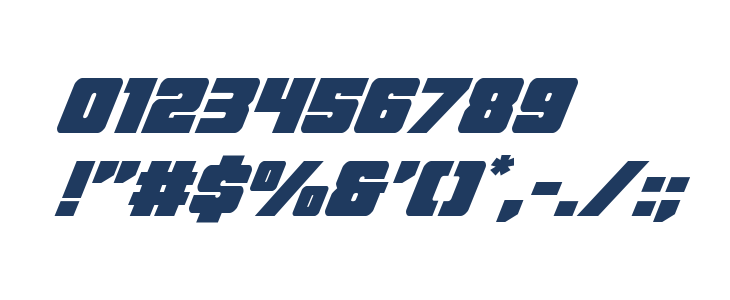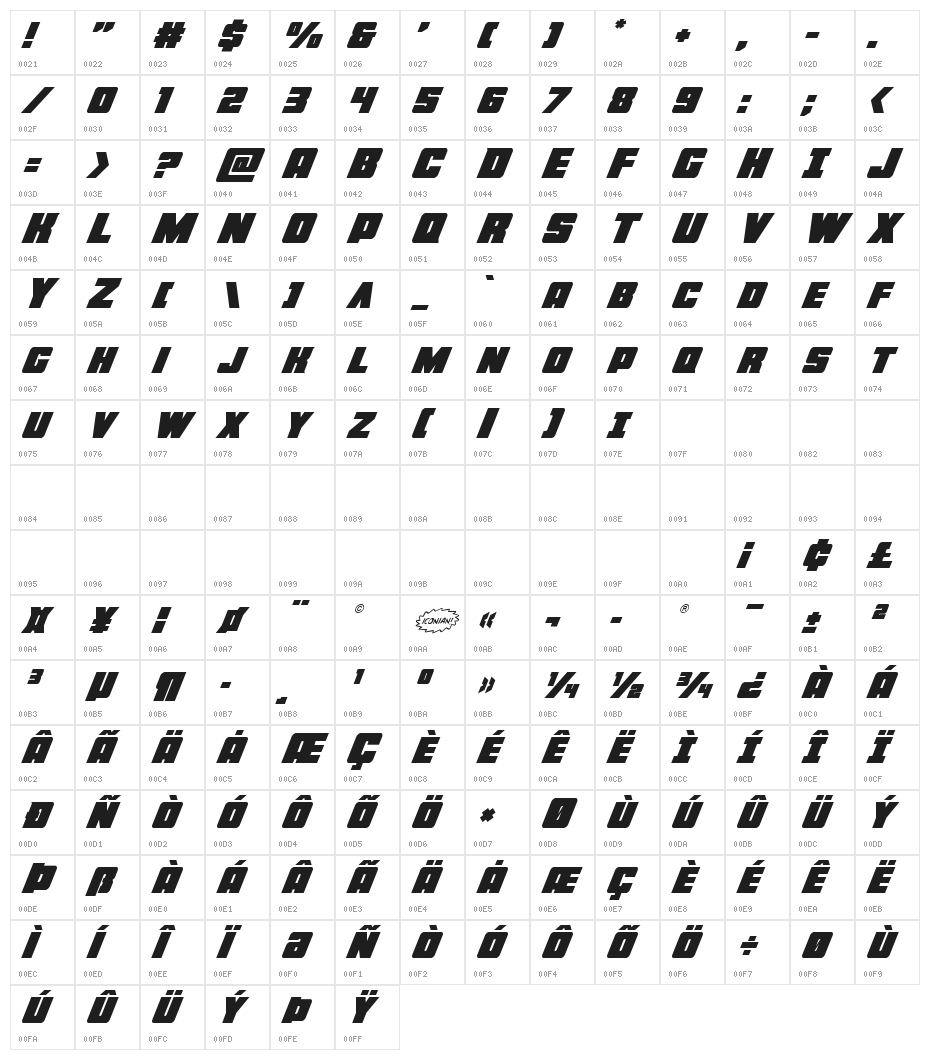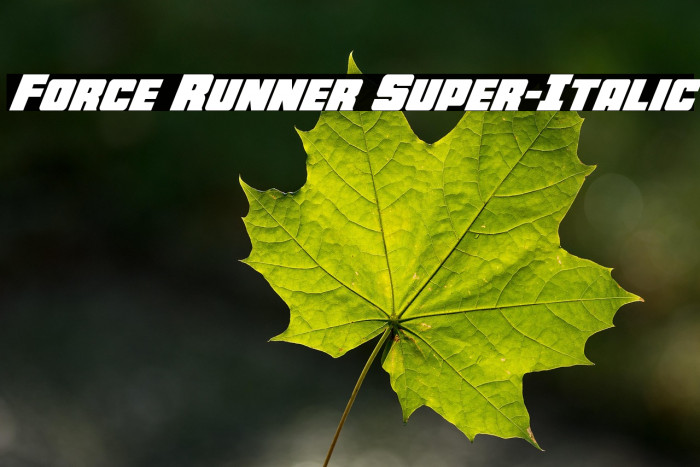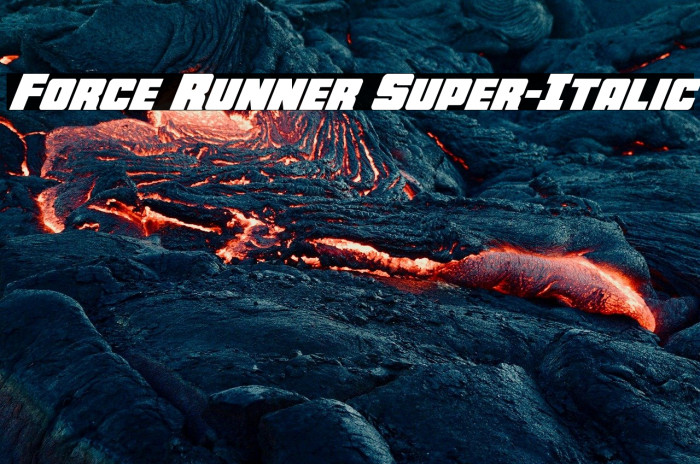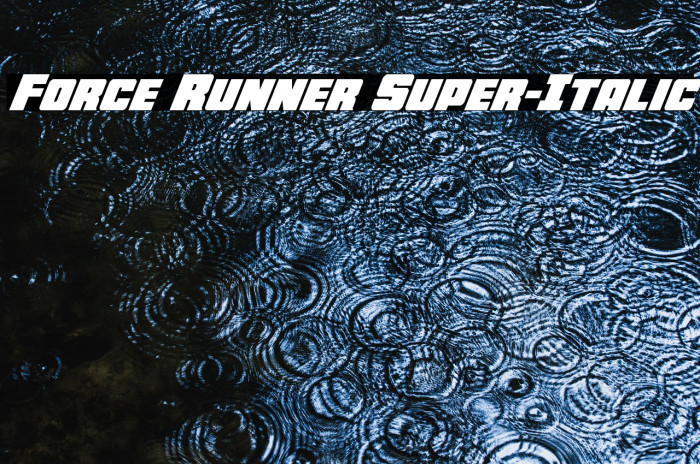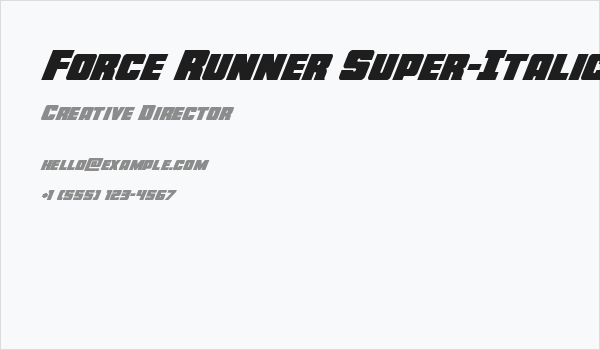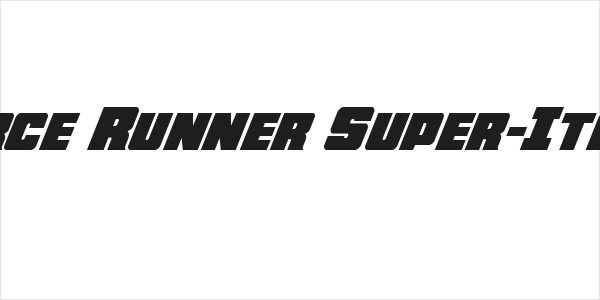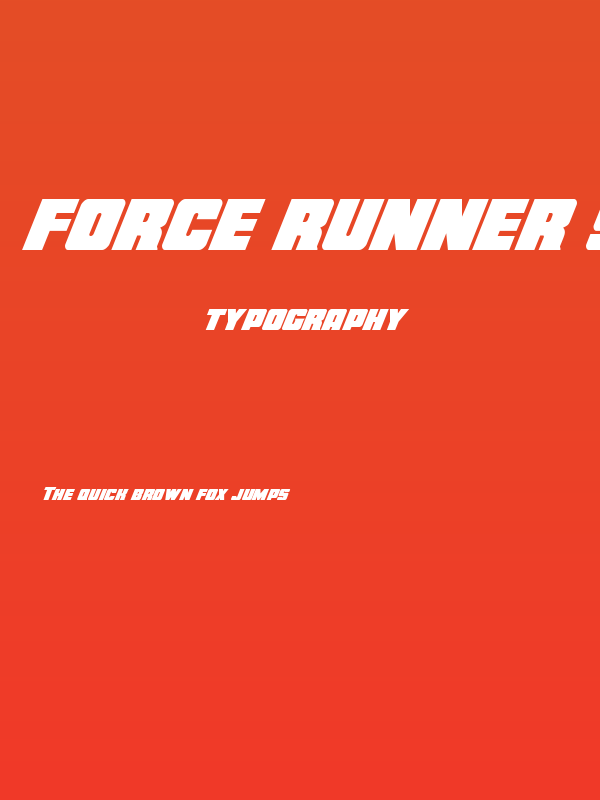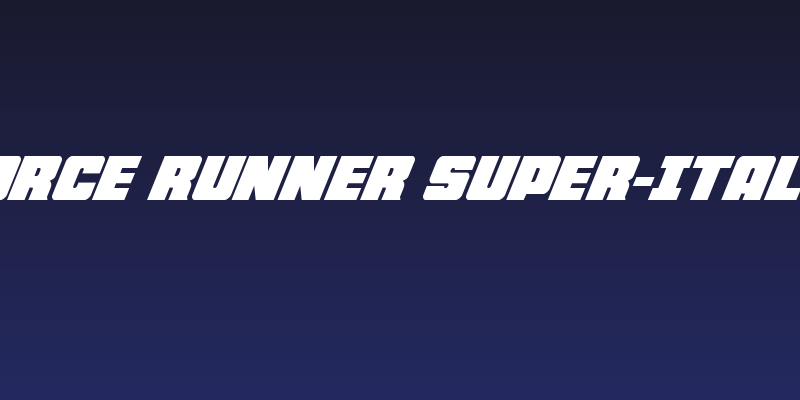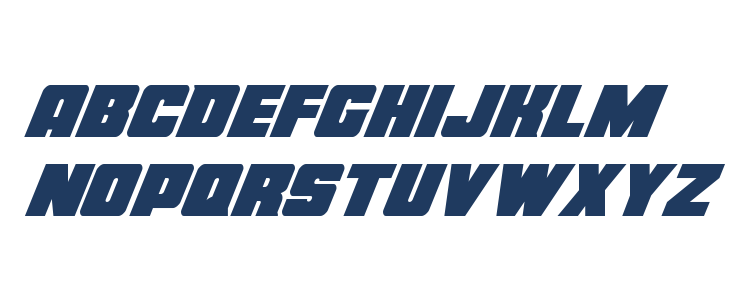
Force Runner Super-Italic Font
Force Runner Super-Italic Description
This font features a bold and dynamic style with a strong italic slant, giving it a sense of motion and energy. The characters are wide and blocky, with a consistent thickness that emphasizes strength and impact. The uppercase and lowercase letters maintain a uniform appearance, enhancing readability while retaining a distinctive flair. The numerals and special characters follow the same bold and italicized design, ensuring a cohesive look across all text elements. This font's aggressive and modern aesthetic makes it ideal for projects that require a powerful visual presence.
| Proposed Projects | Ideal for sports branding, action movie posters, video game titles, and dynamic advertising campaigns. |